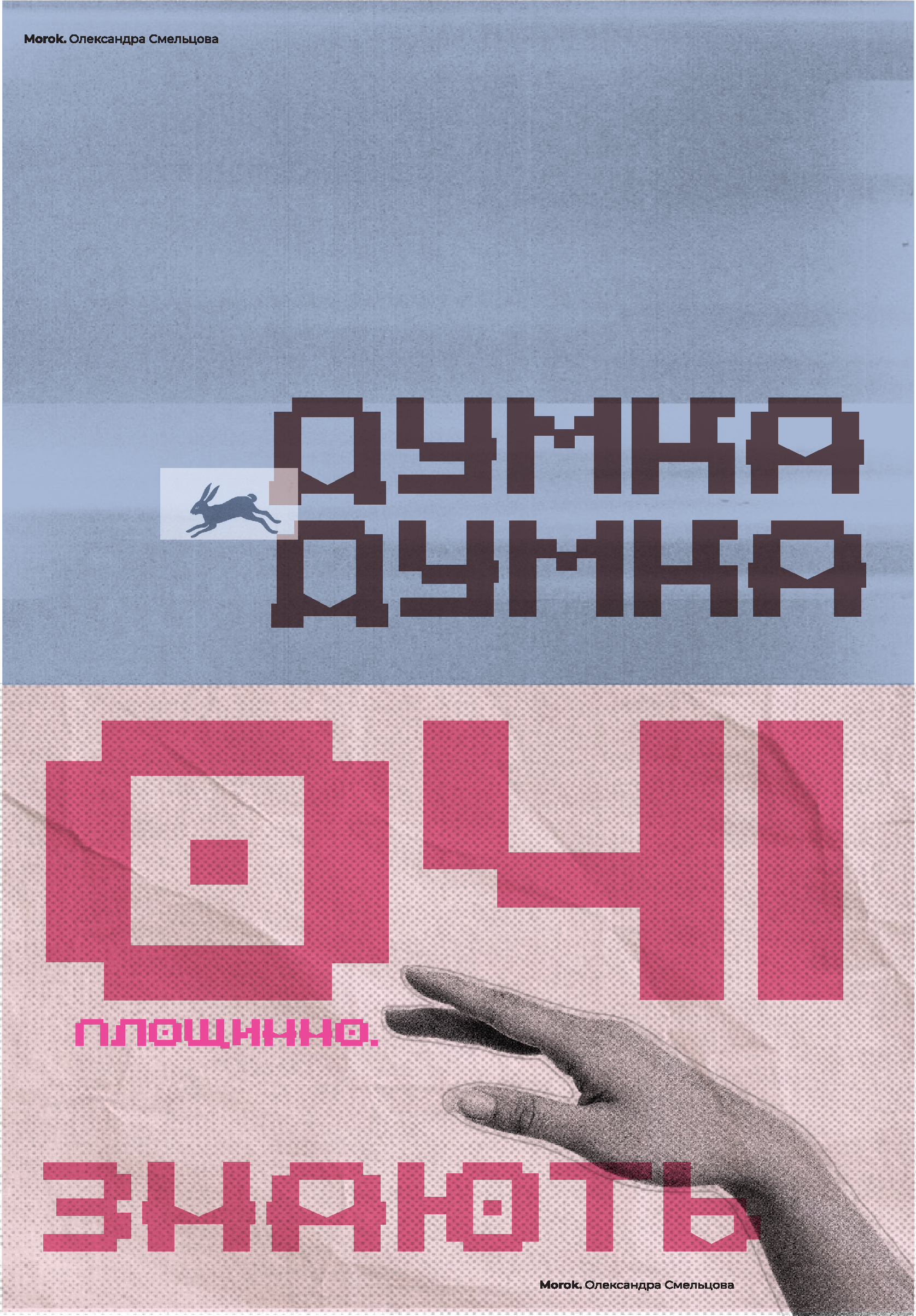
flyer - presentation of own font
Morok — An accidental Cyrillic font with a pronounced brutalist character and digital dynamics.
The concept is based on pixel graphics and authentic chopped forms. The font is strict and geometric — without roundness and decorative details. It is also quite angular and expressive, as each element is built on clear broken forms. Rhythmic — the internal geometry creates a characteristic visual pattern in the text.
The font works best in large and medium sizes and is suitable for posters and advertising materials, music album covers, brand identity, and merchandise.